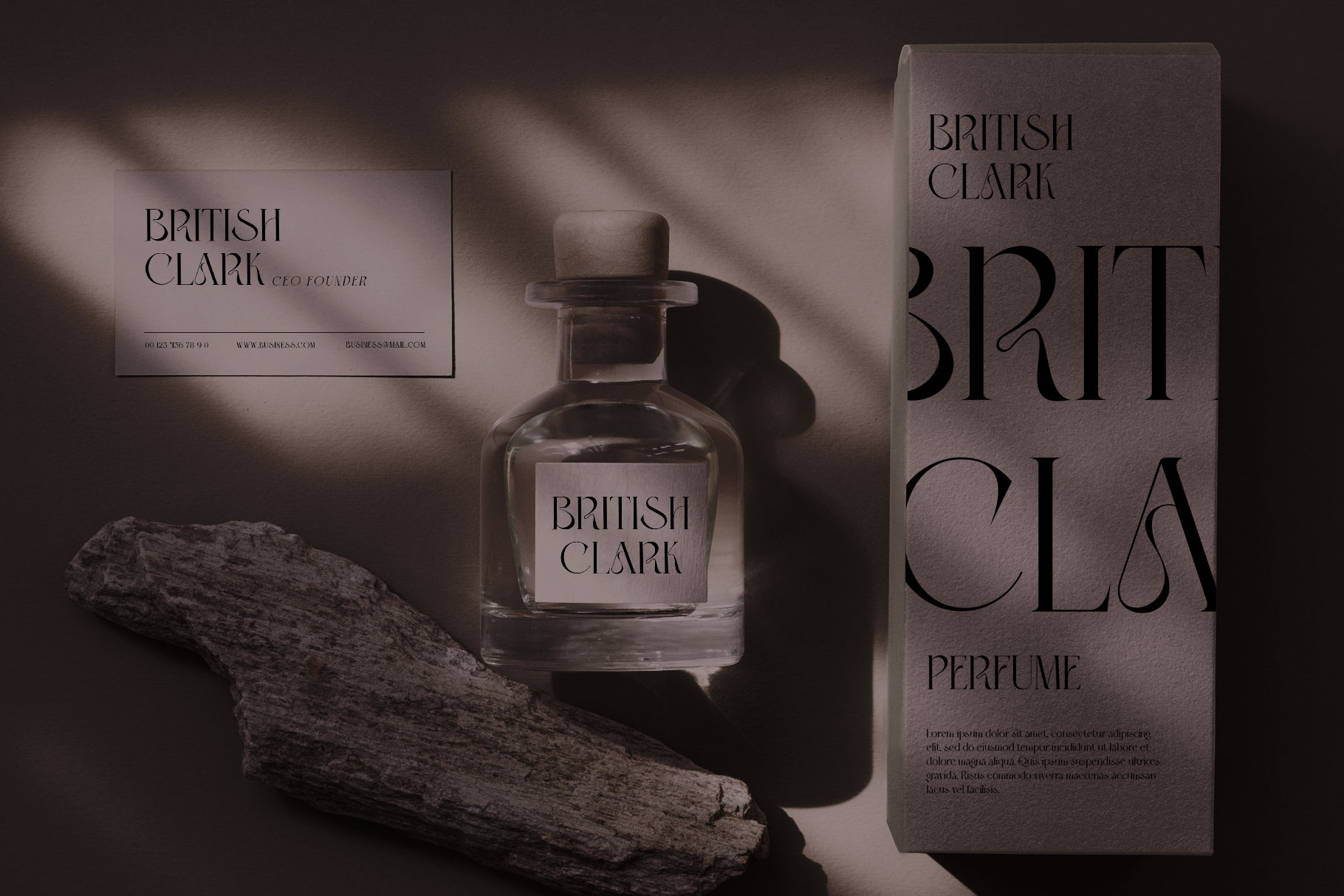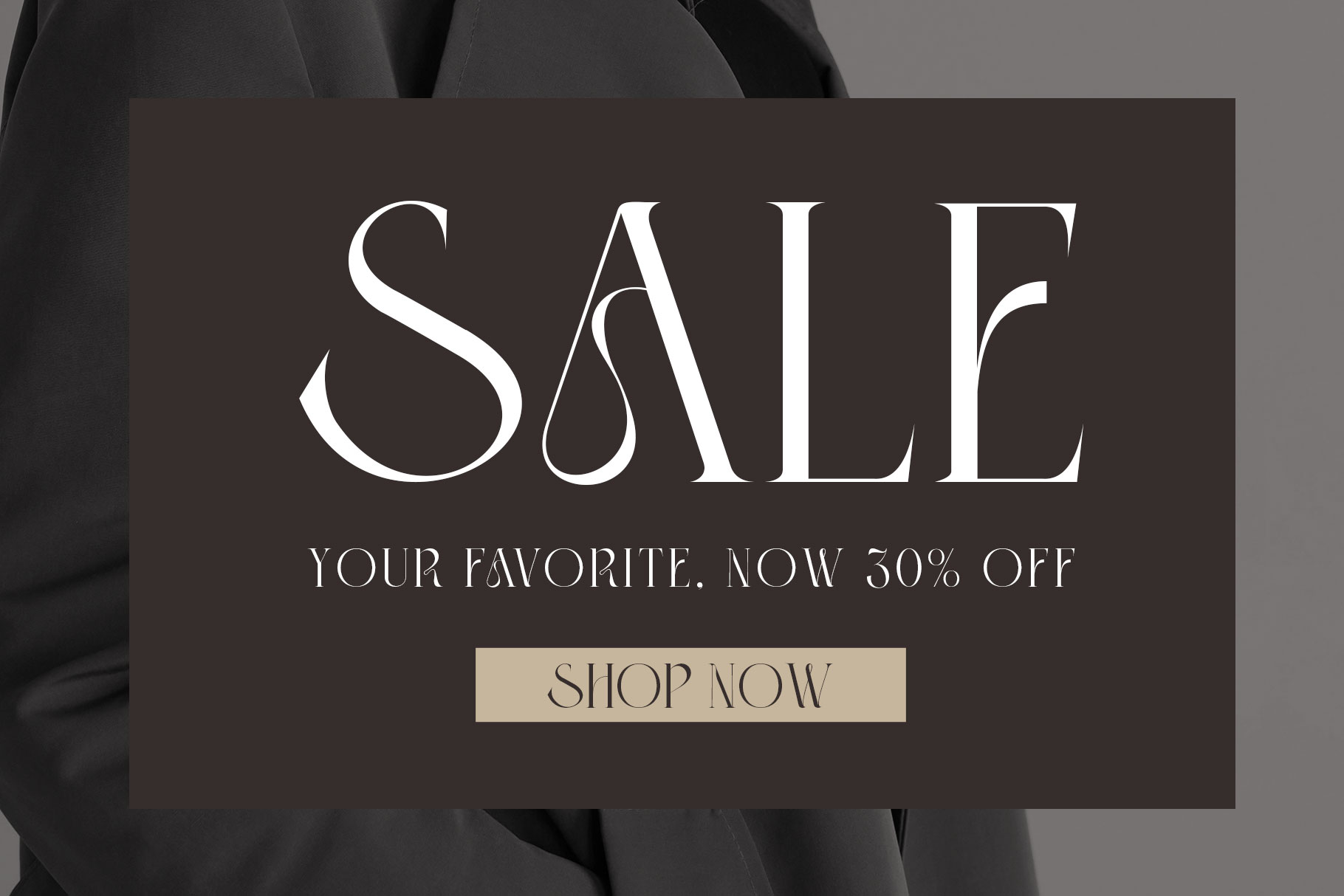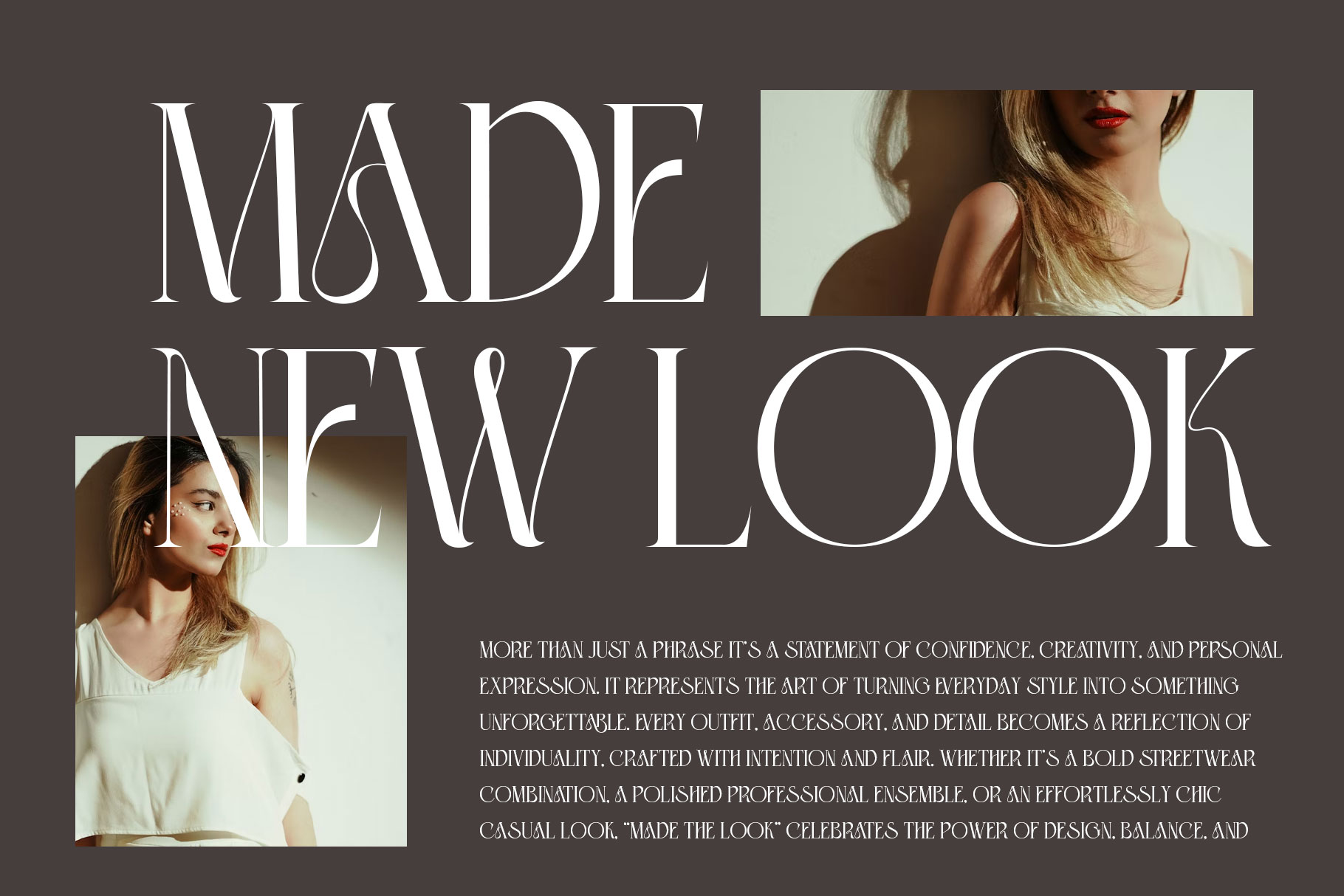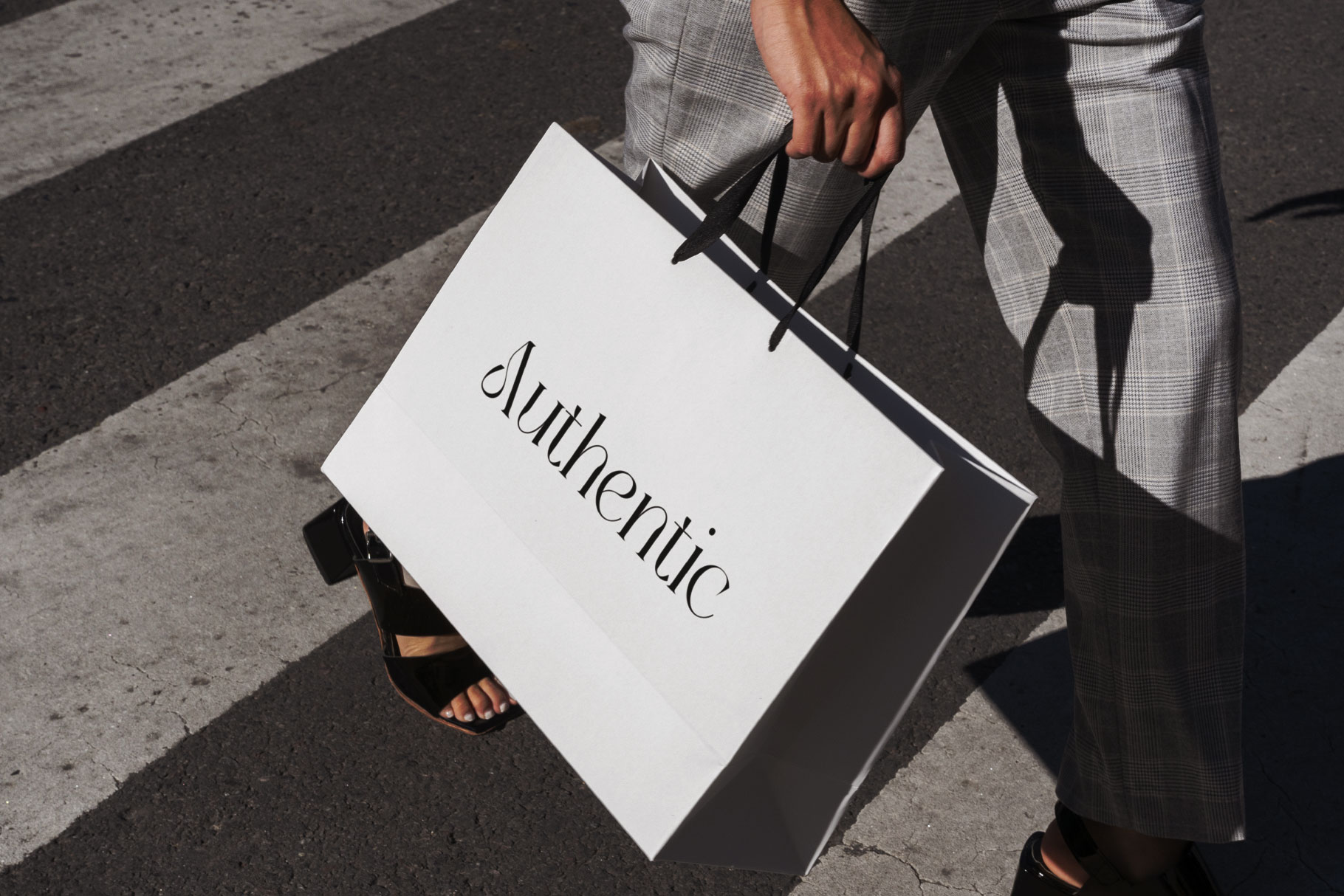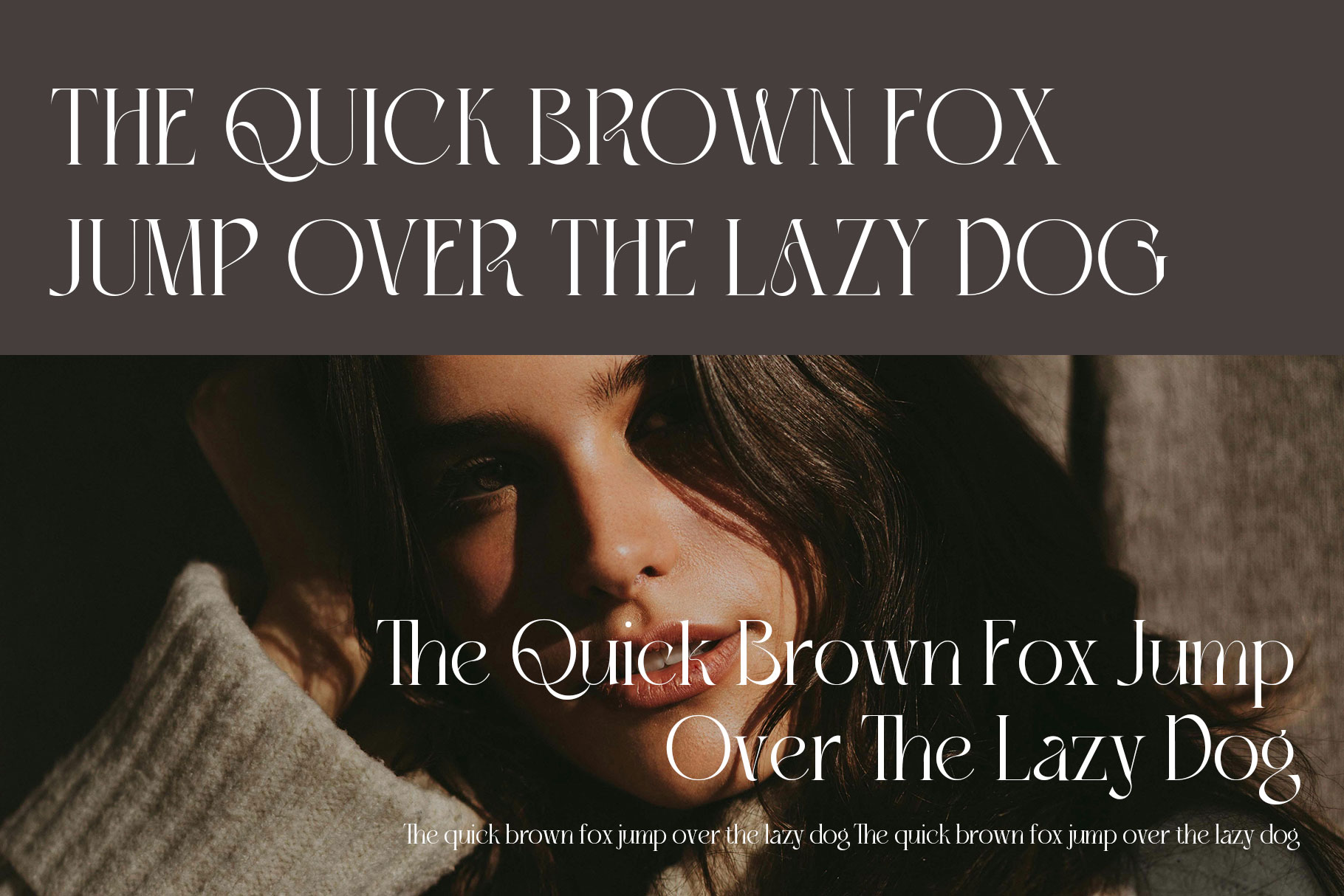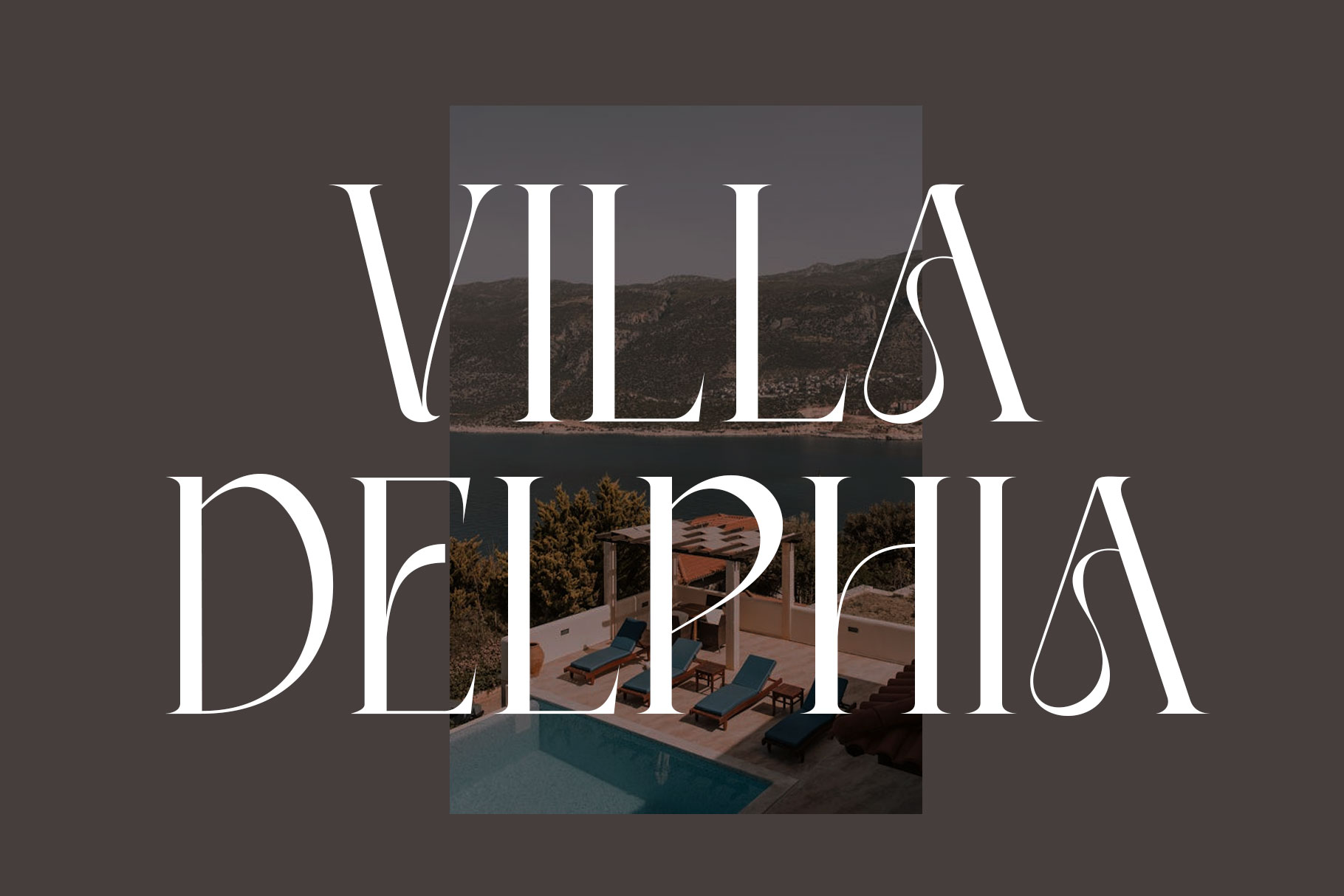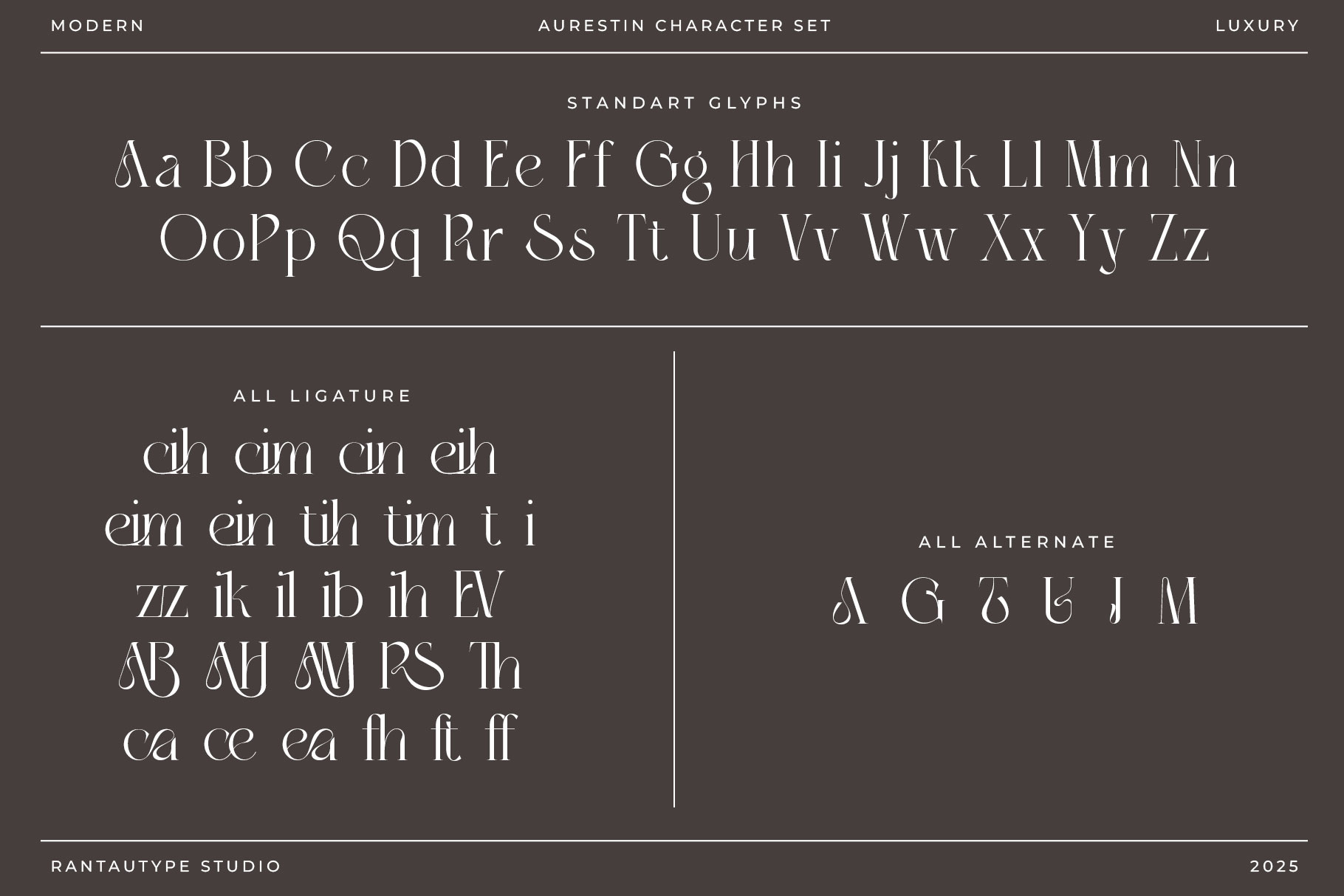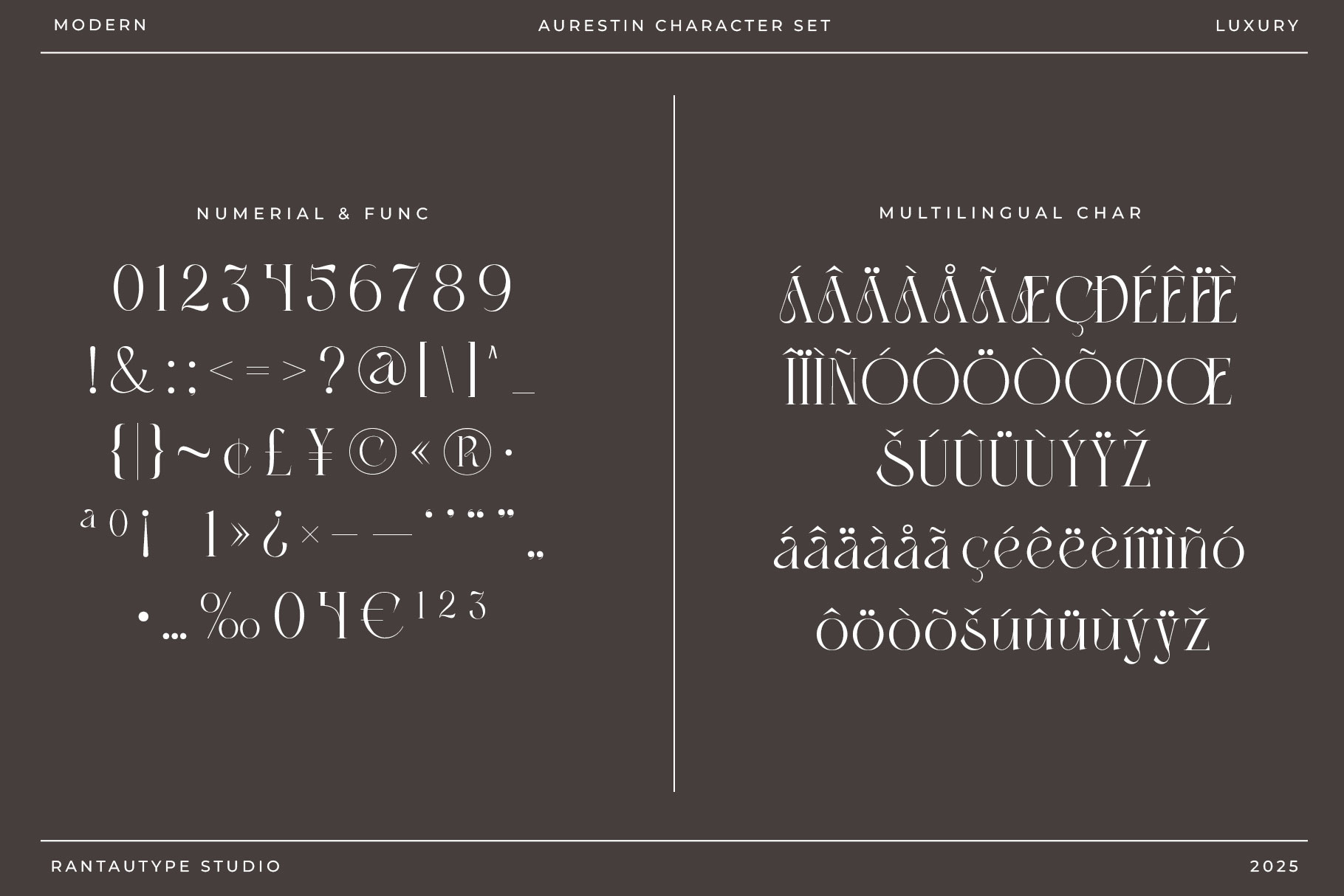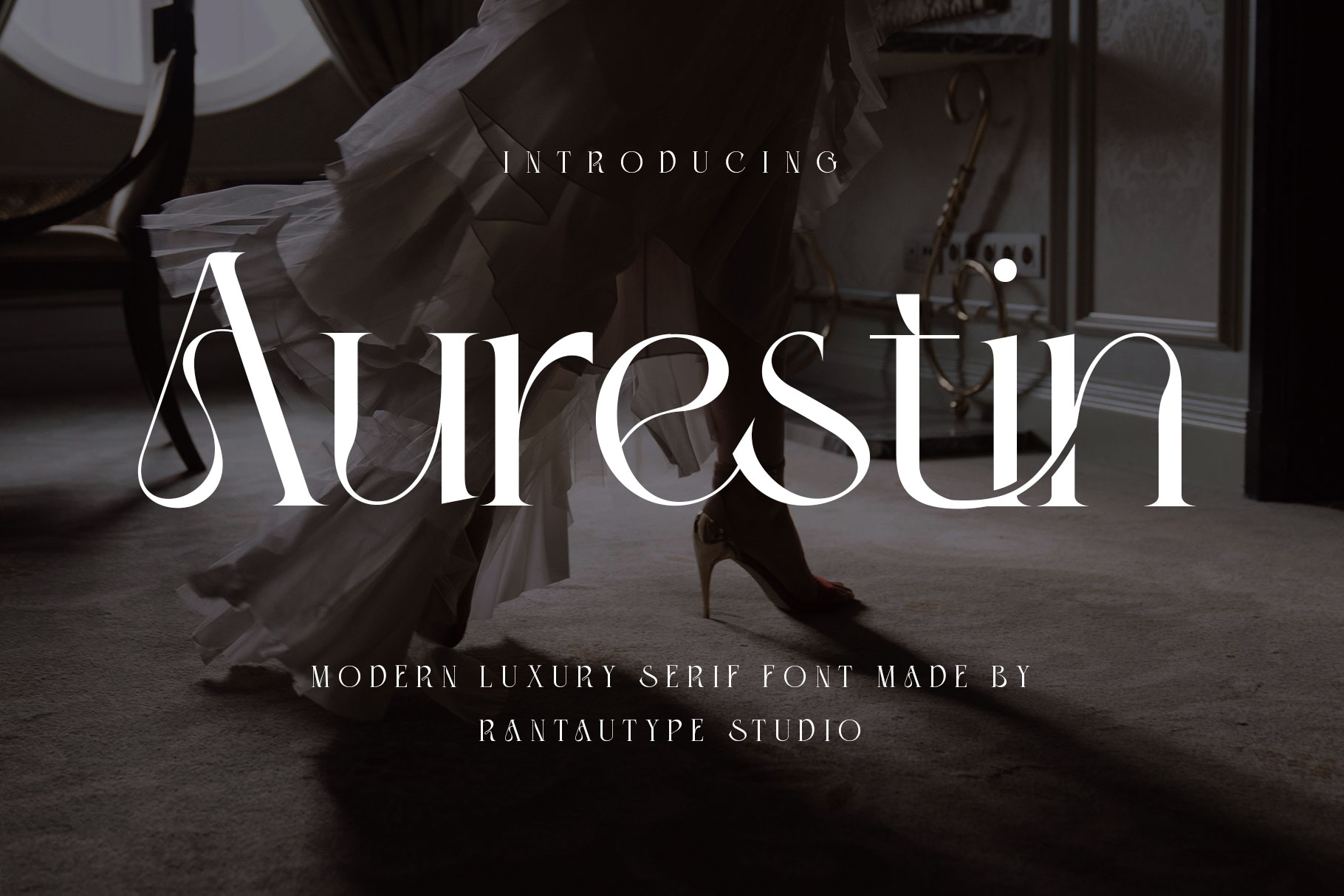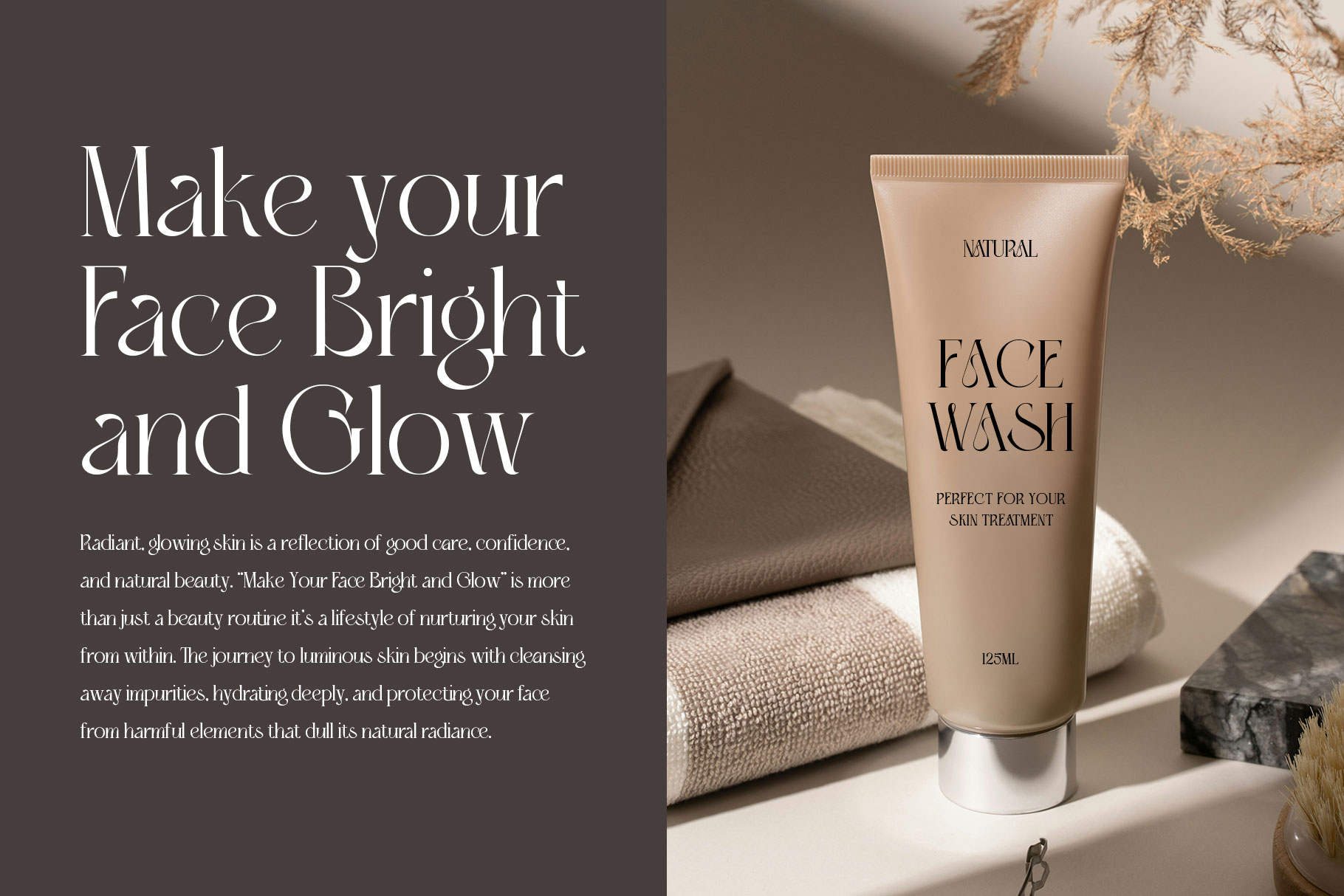
Aurestin Modern Serif Font
Aurestin is represents the perfect harmony between contemporary minimalism and timeless elegance. Crafted with precision and artistry, this typeface embodies the spirit of modern sophistication, clean lines, refined curves, and balanced proportions that exude exclusivity.